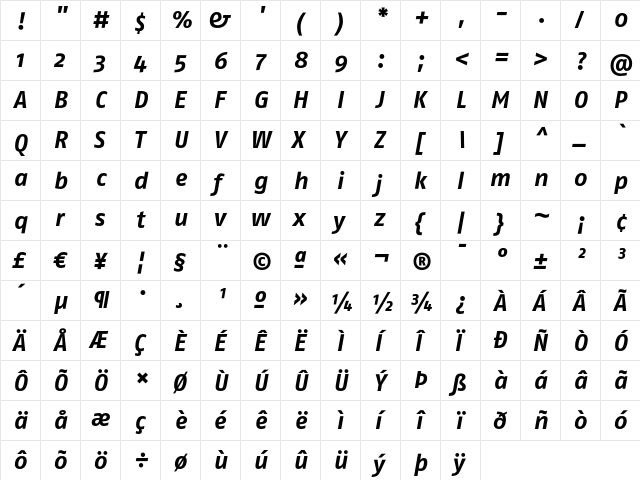
FagoNoBold Regular
Design Context for FagoNoBold Typeface
FagoNoBold offers clean, dependable letterforms without strong stylistic allegiance, making it a practical choice for designers who need flexibility. The heavy weight commands attention and anchors typographic hierarchies.